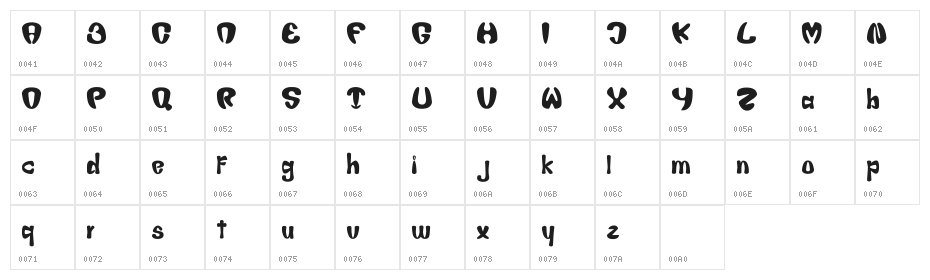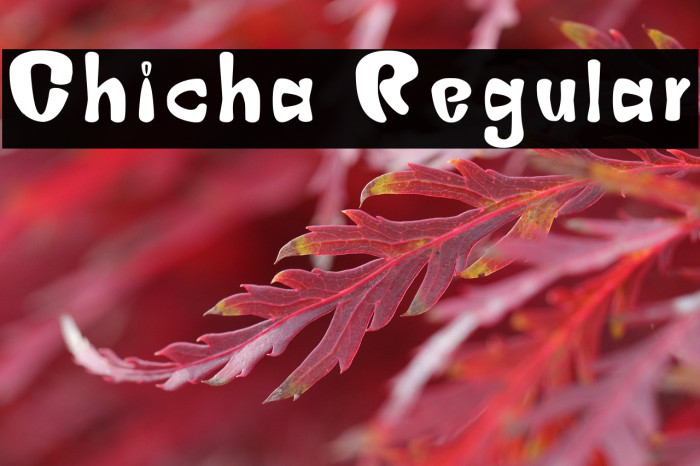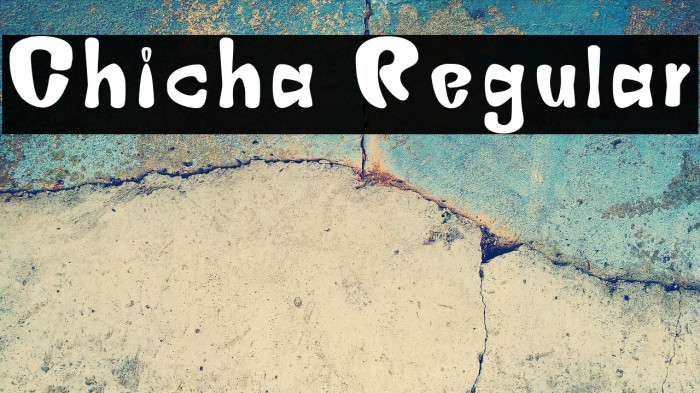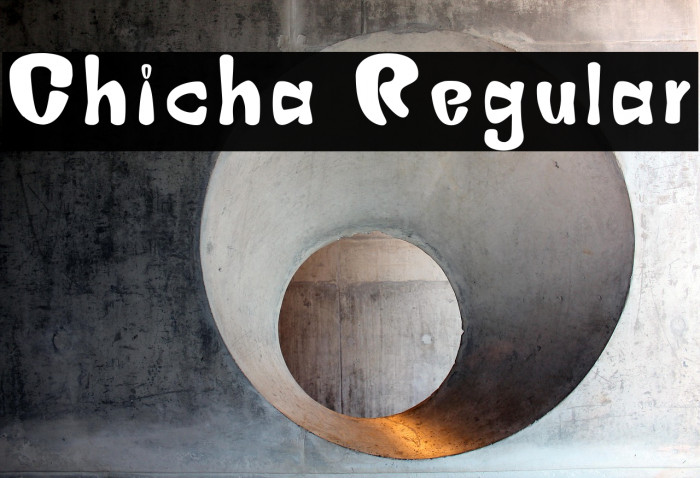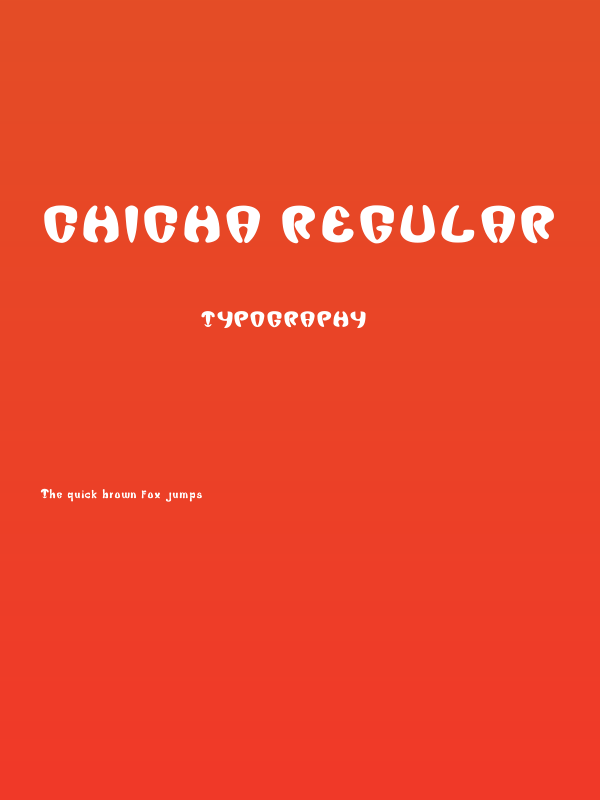
Chicha Regular Font
Chicha Regular Description
This font features a playful and bold design with a unique, rounded style. The characters are thick and have a whimsical, almost cartoonish appearance, making them stand out with their distinctive curves and shapes. The uppercase and lowercase letters maintain a consistent style, with the lowercase letters slightly more condensed. The numbers and special characters follow the same playful design, ensuring uniformity across all glyphs. This font is ideal for projects that require a fun and engaging visual impact.
| Overall Style | Playful, Whimsical, Bold |
| Proposed Projects | Ideal for children's books, playful branding, posters, and creative projects that require a fun and engaging aesthetic. |